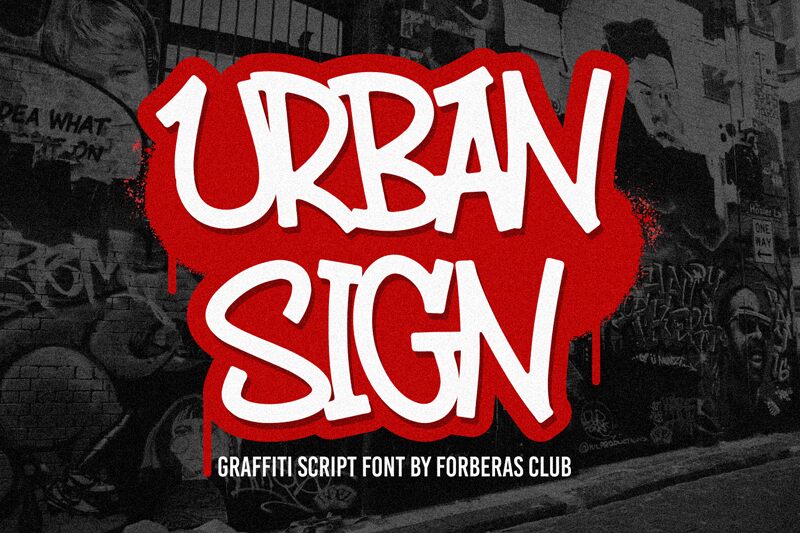
Urban Sign font is a graffiti-style typeface by Forberas Club with urban-inspired and energetic features. A street-style influence is apparent in its design, characterized by a contemporary and dynamic appeal. These details reflect well the unique art form practiced by our talented modern graffiti artists.
Urban Sign